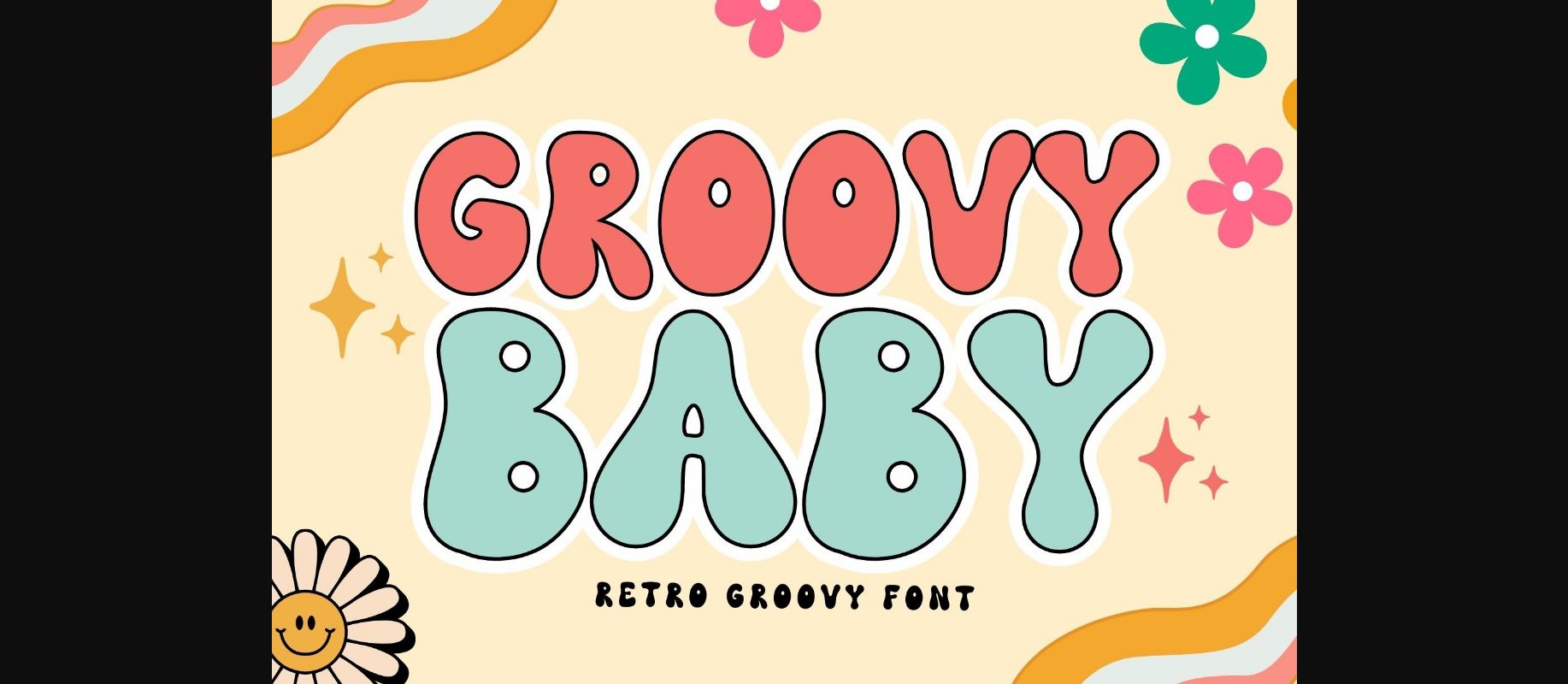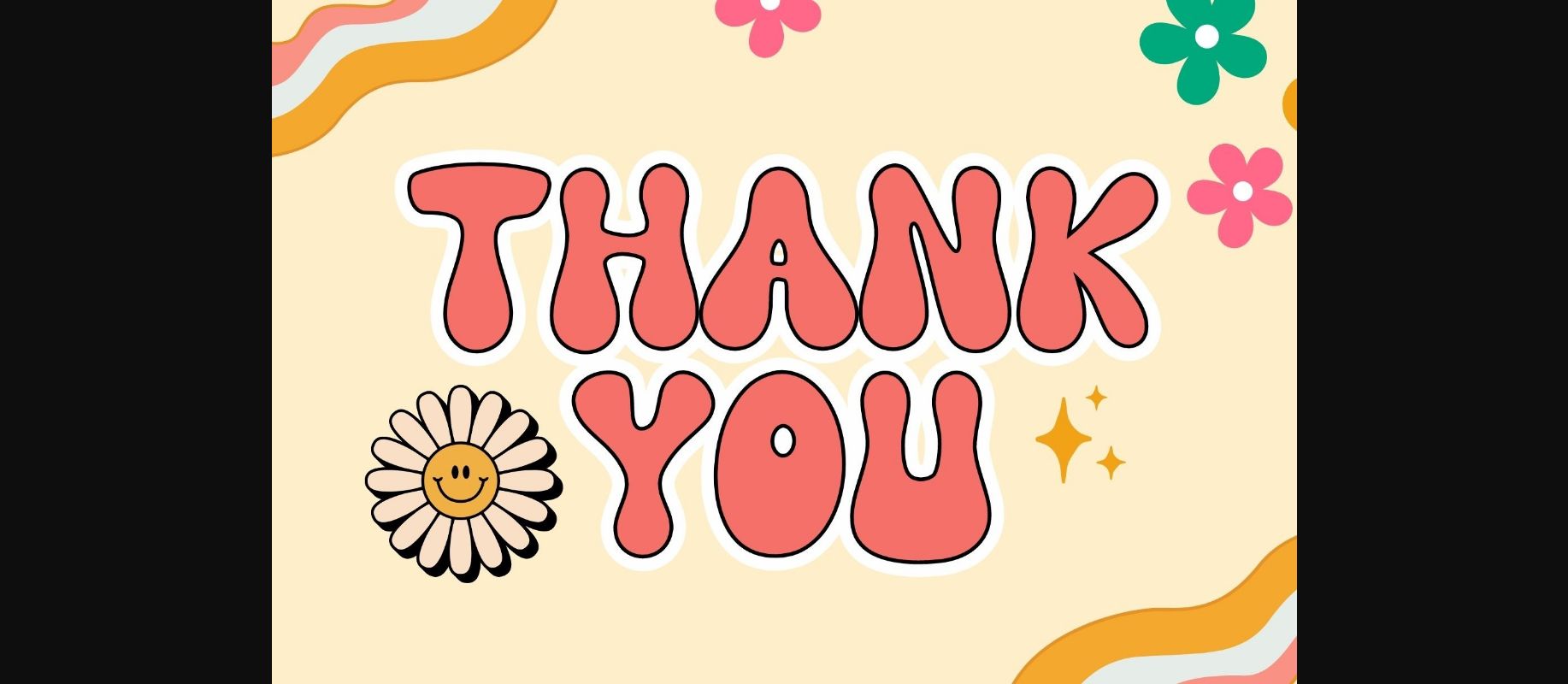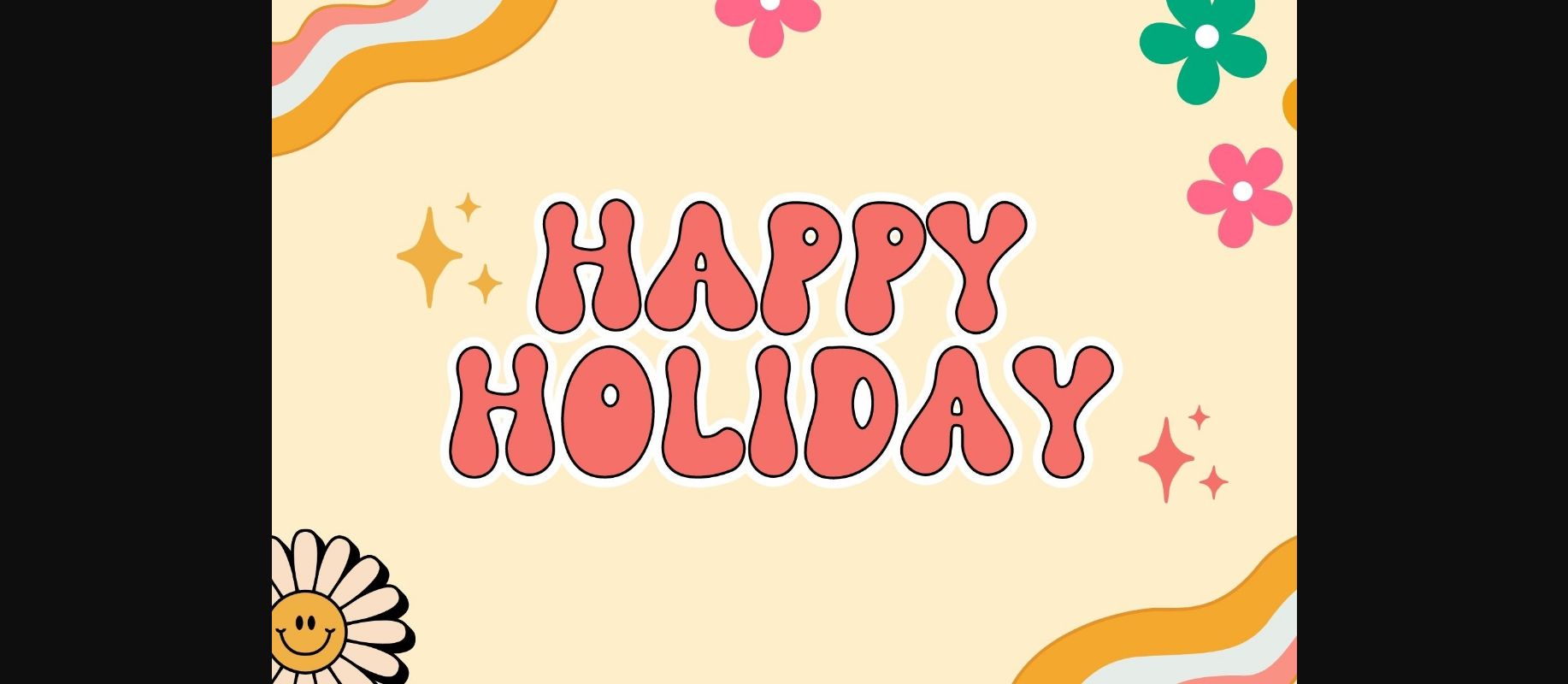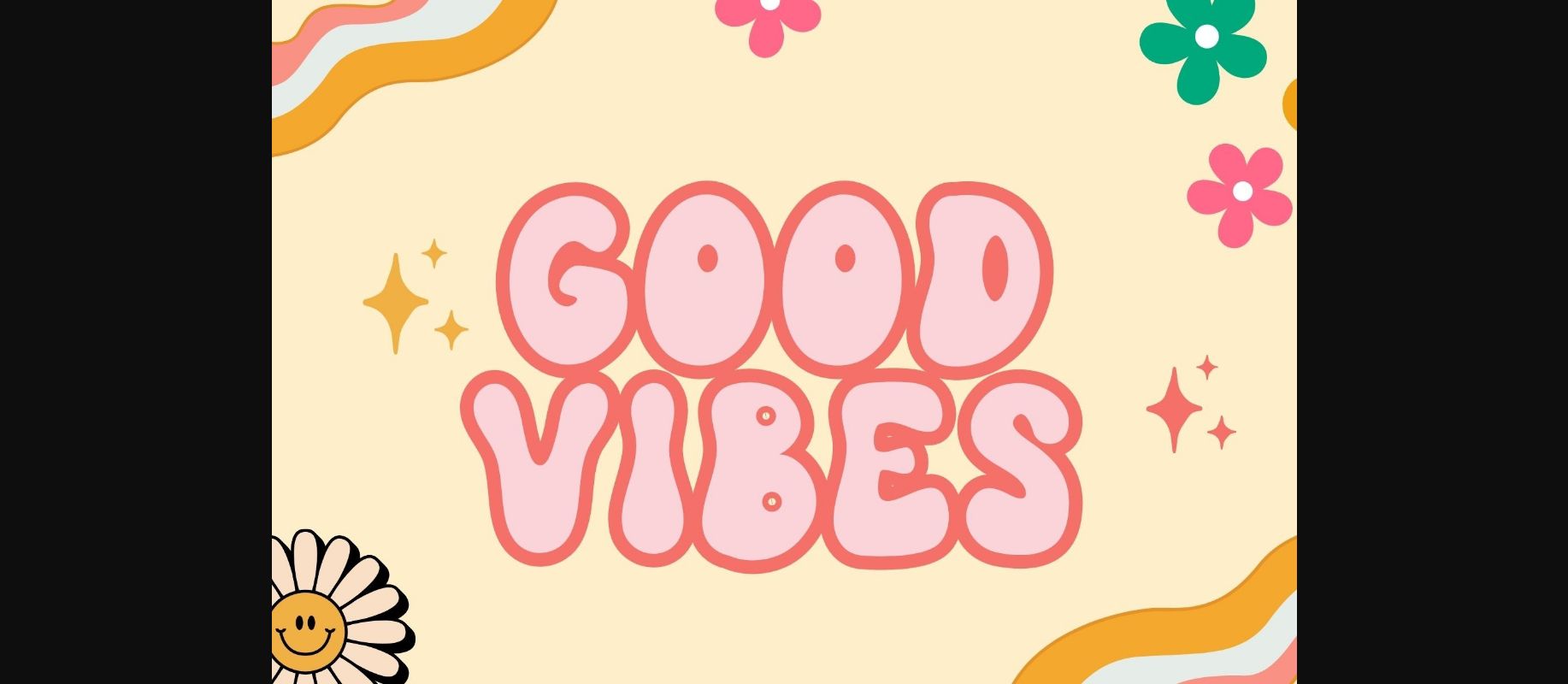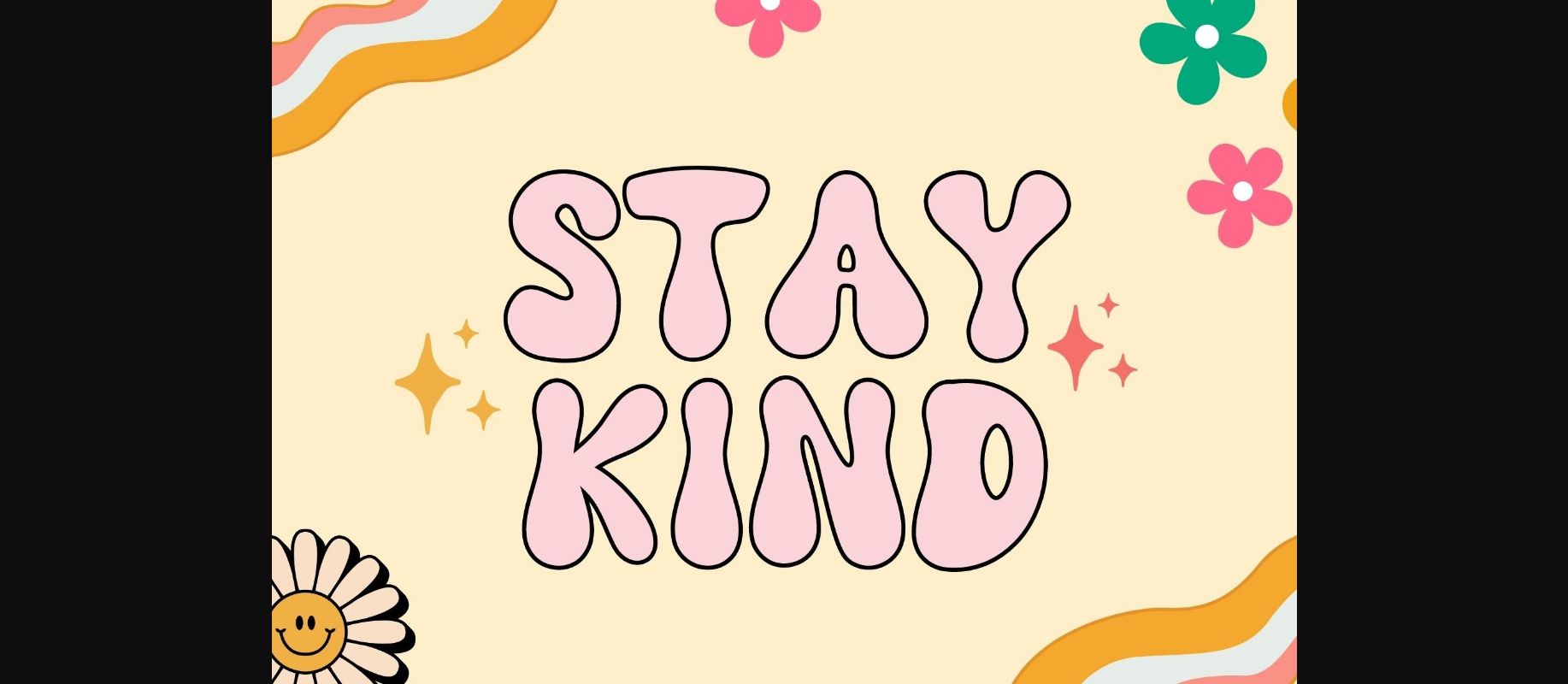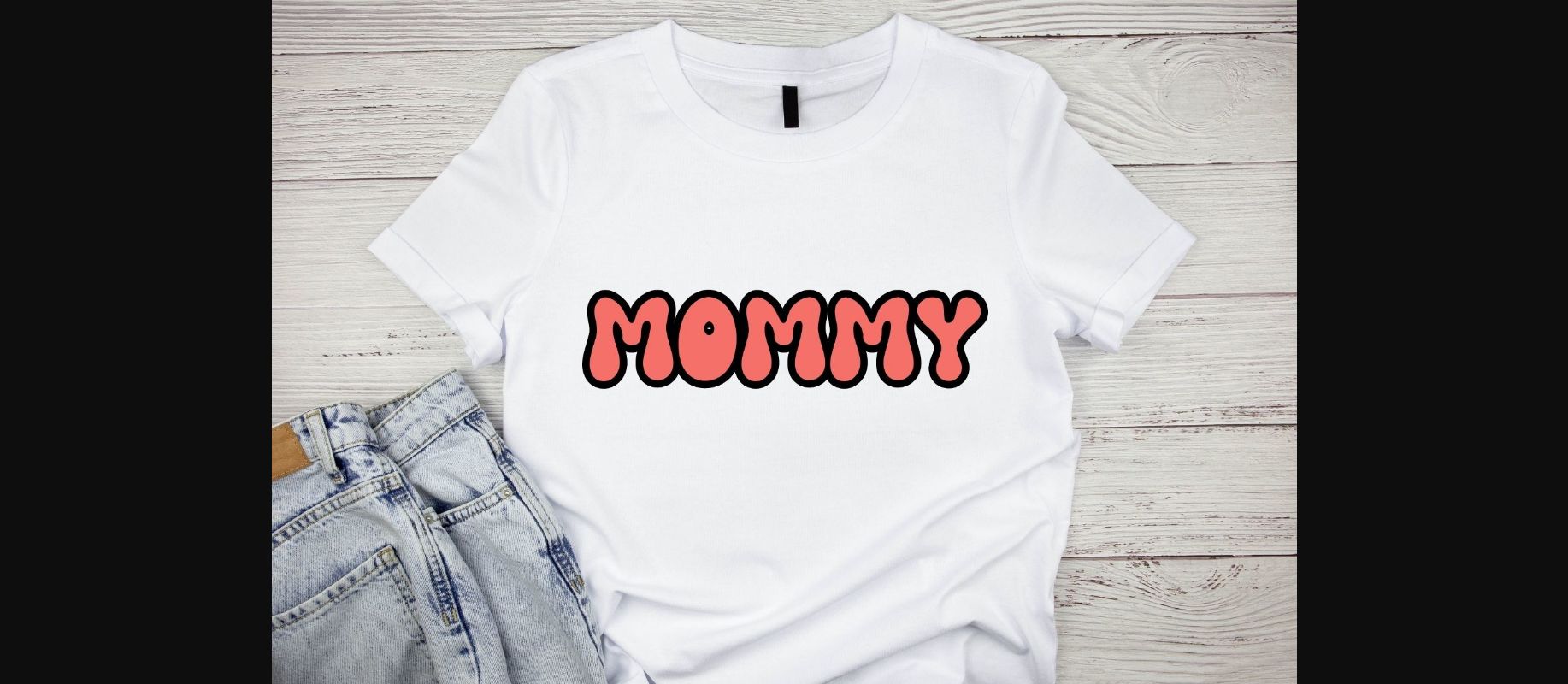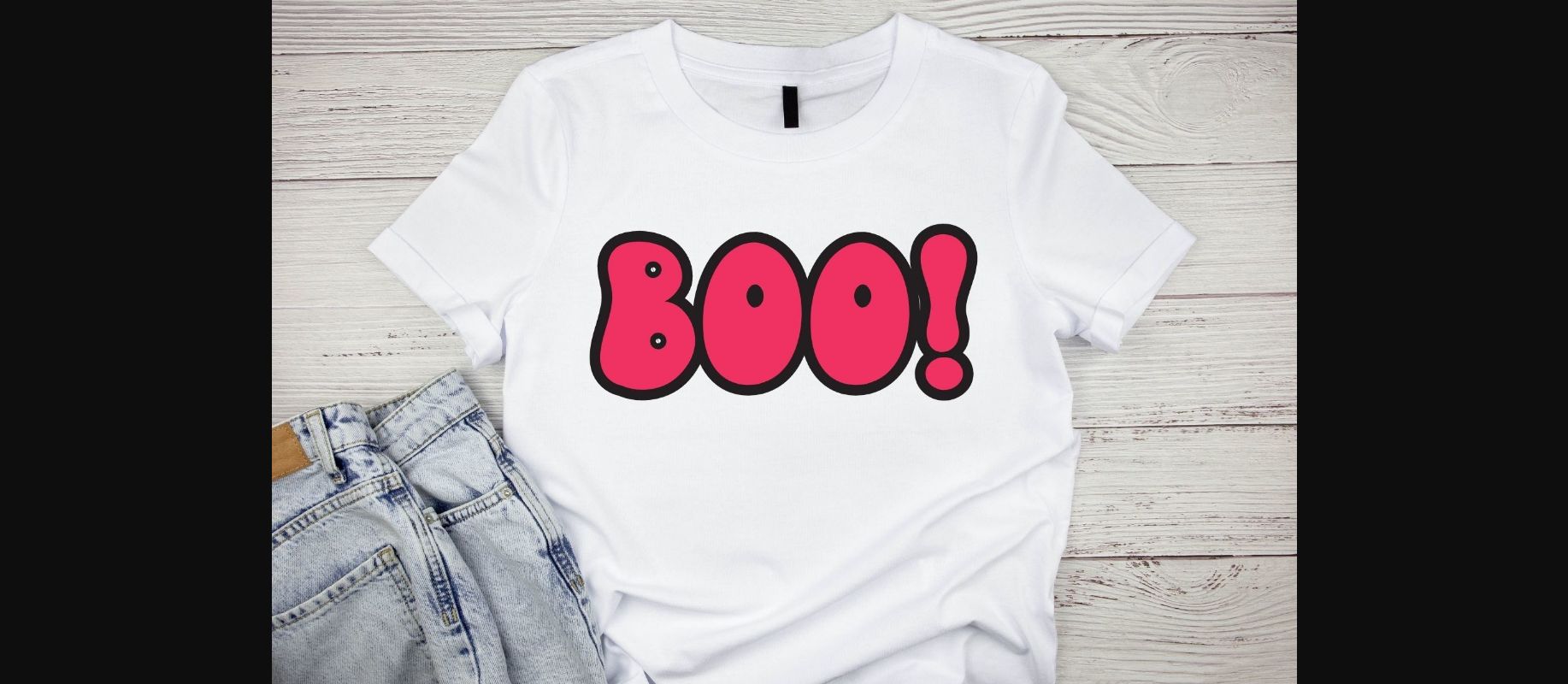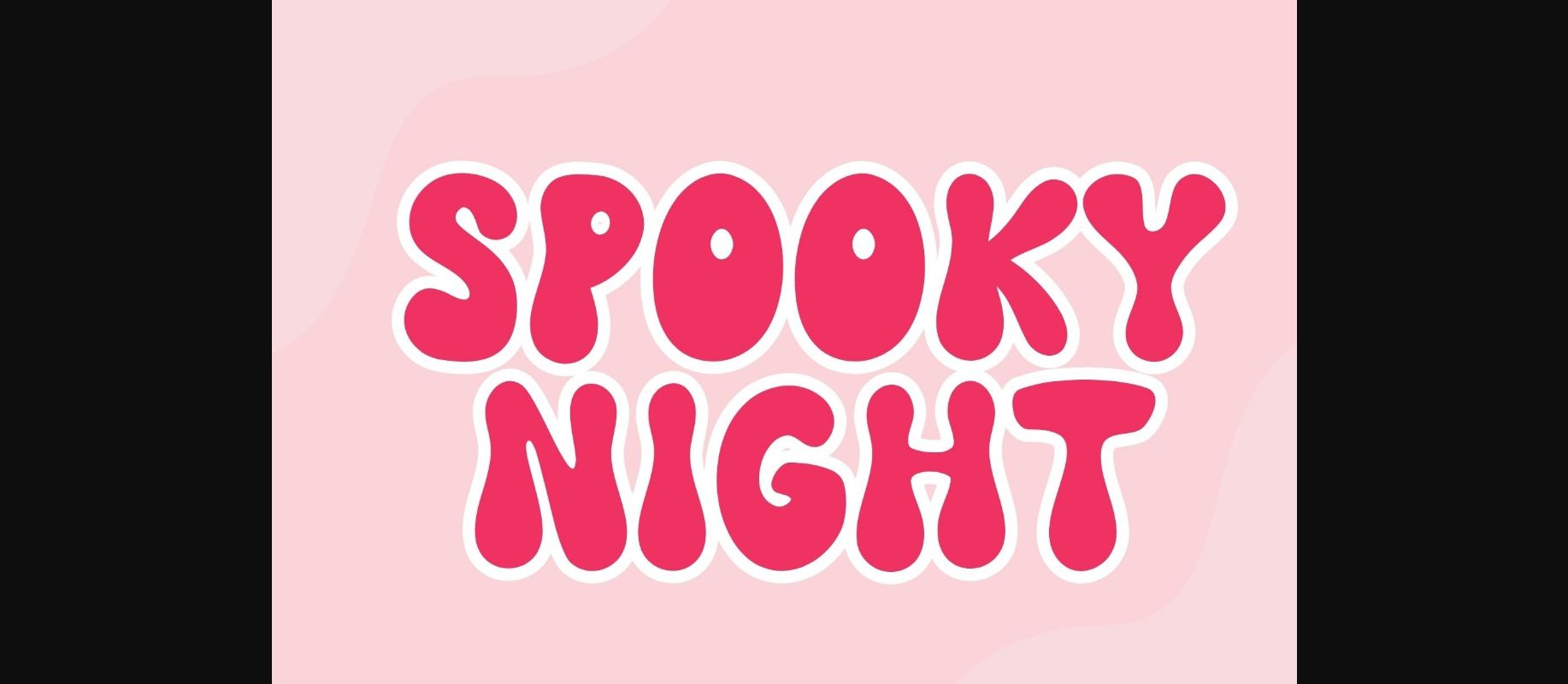
Groovy Baby Font
About Groovy Baby Font
Groovy Baby is a cool retro Groovy display font. It embodies playfulness and authenticity and is the perfect choice for all your favorite projects such as blog posts, logos, branding, ads, invitations, greeting cards, planners, photo albums, decorations, and more. Add it to any of your designs, and enjoy the results!